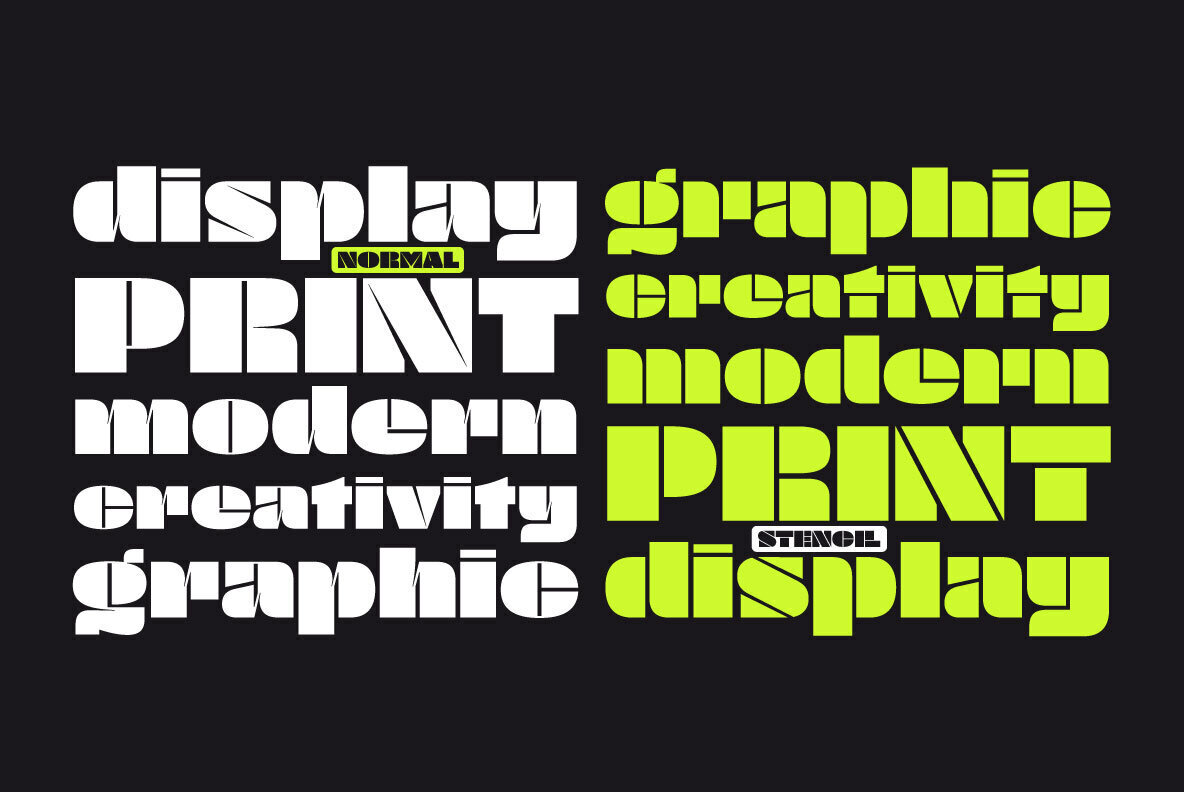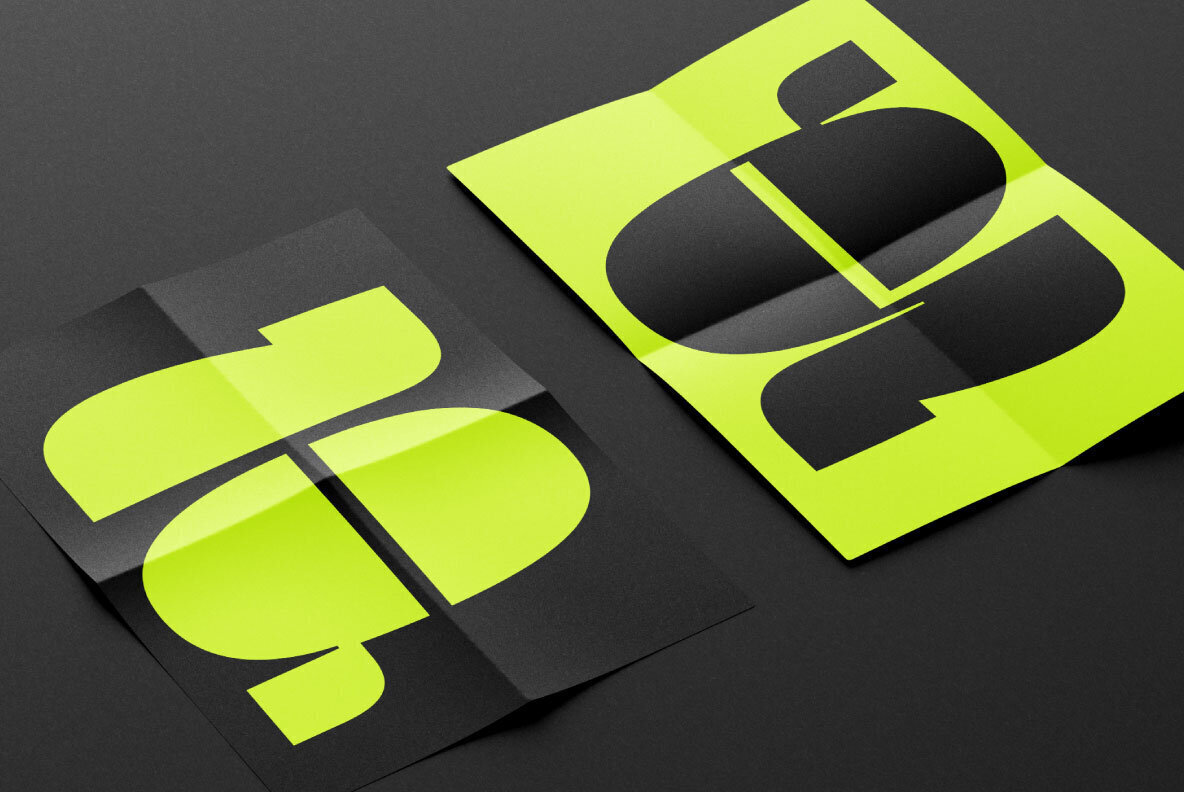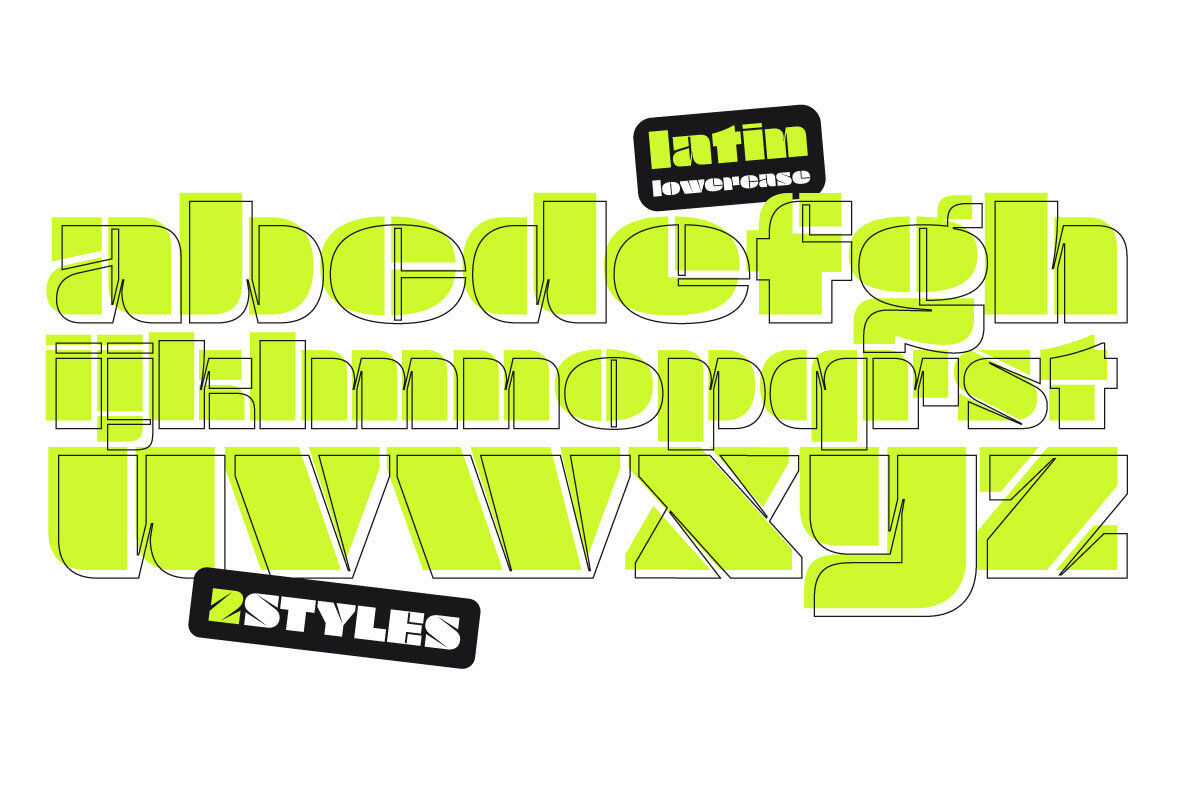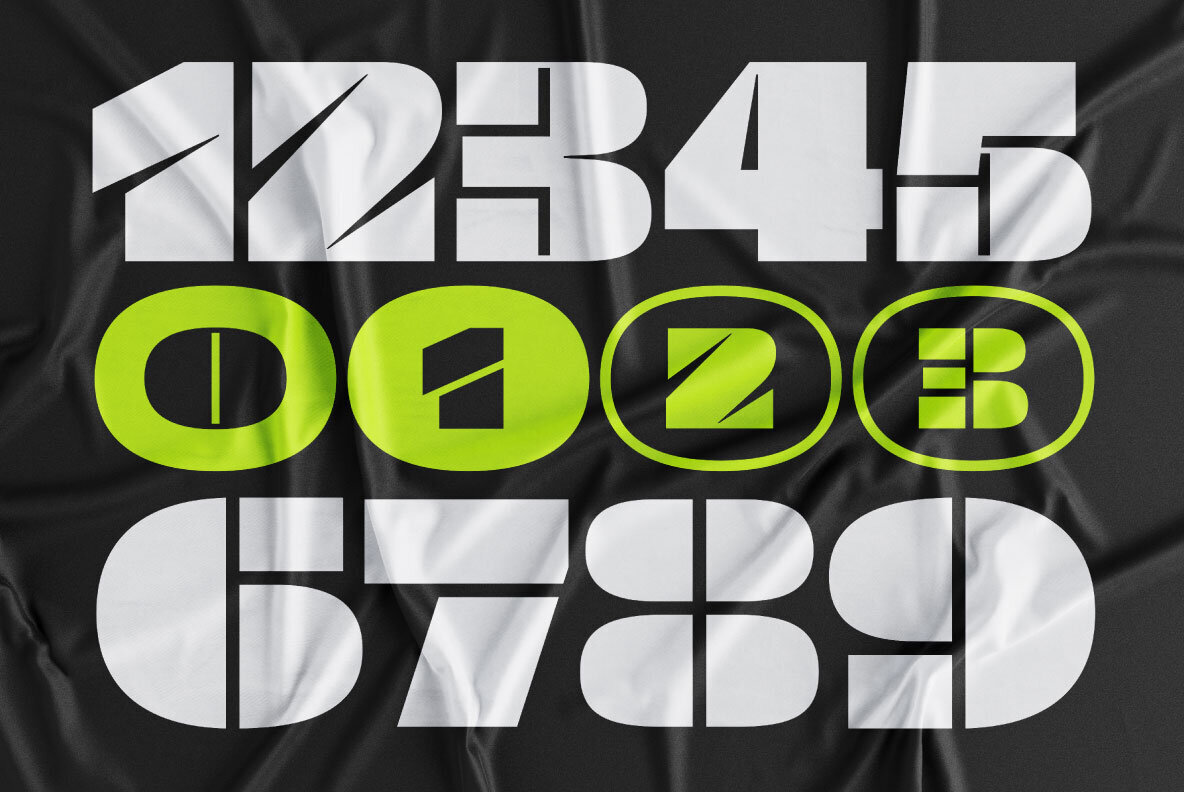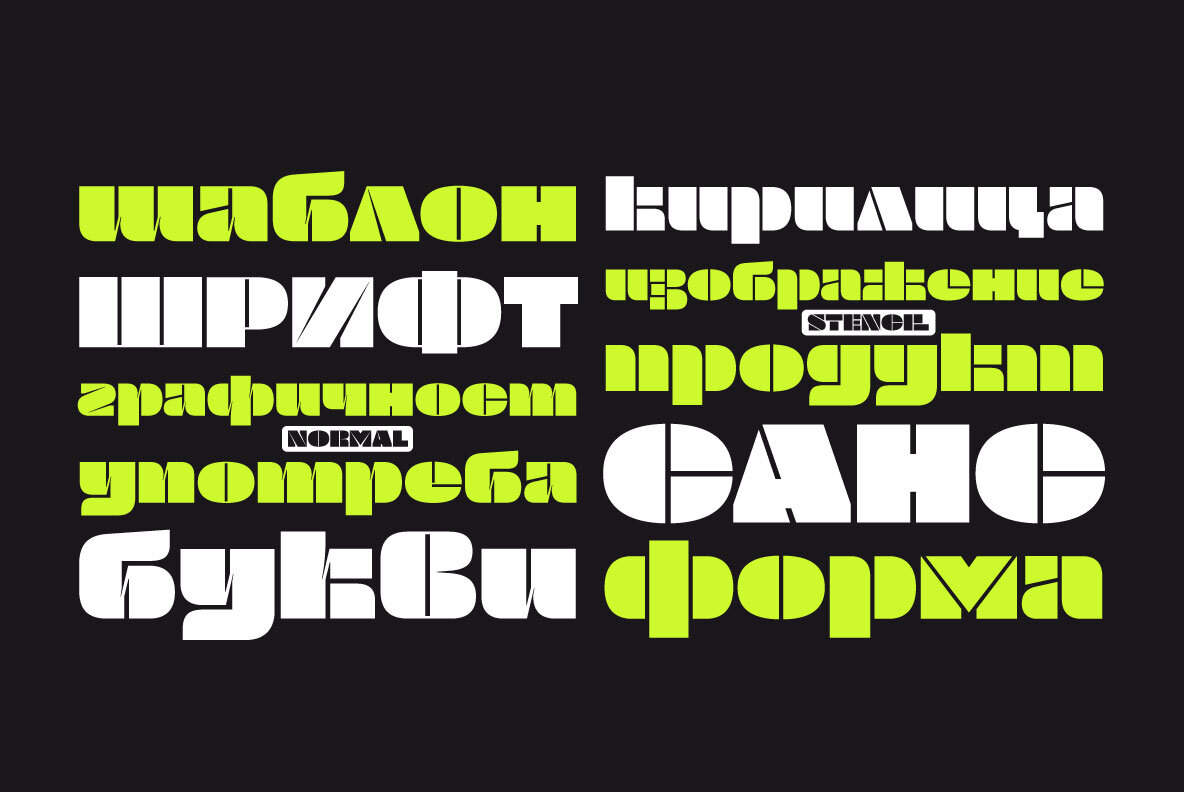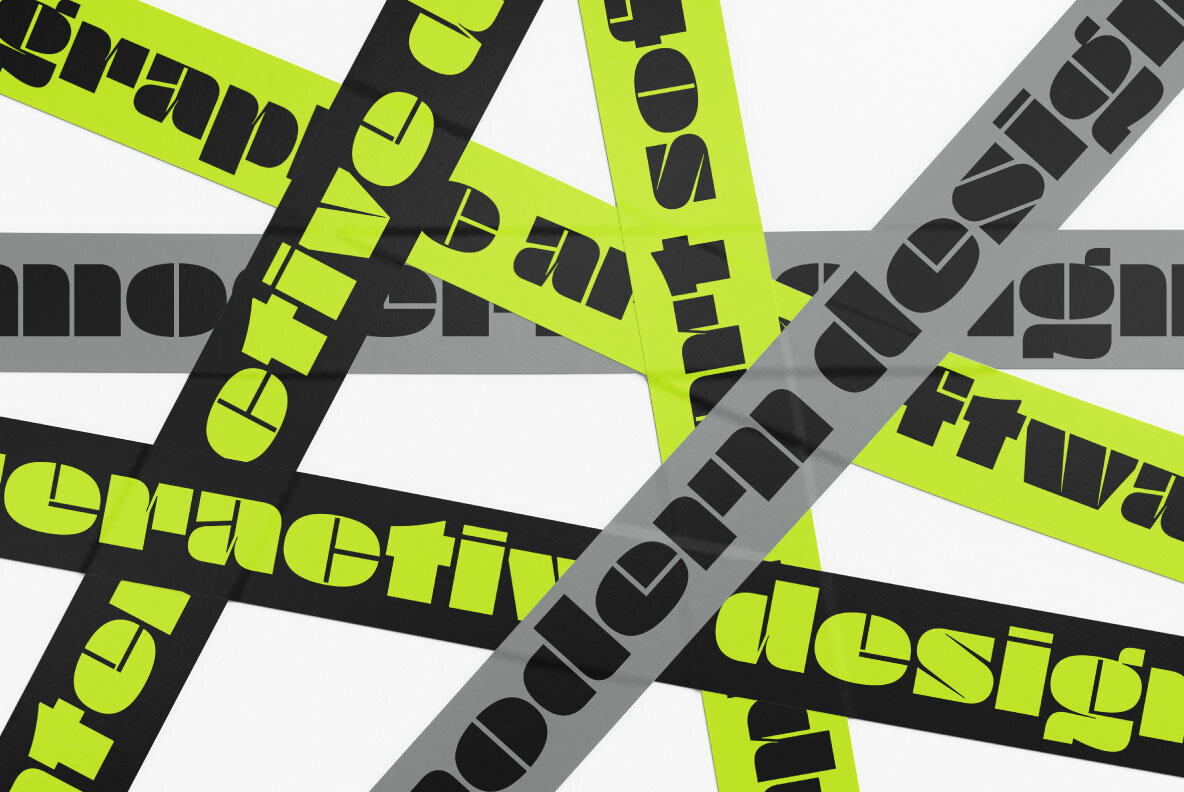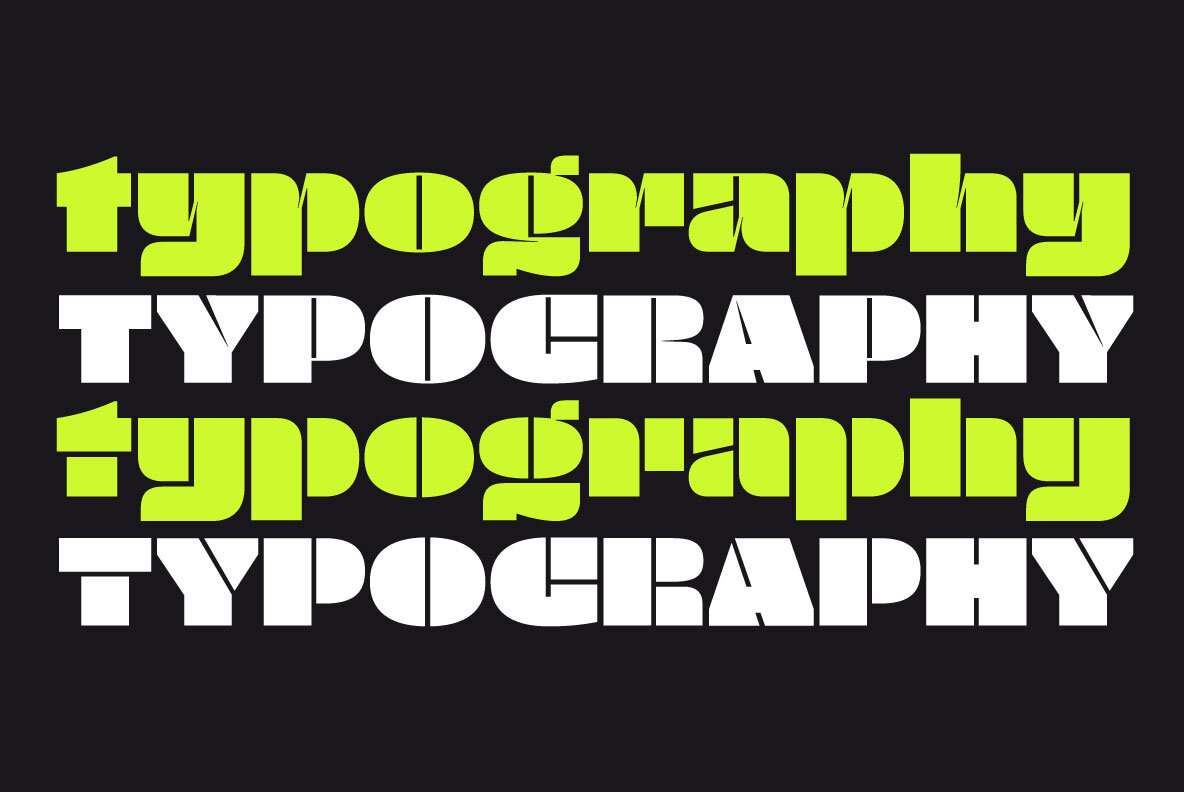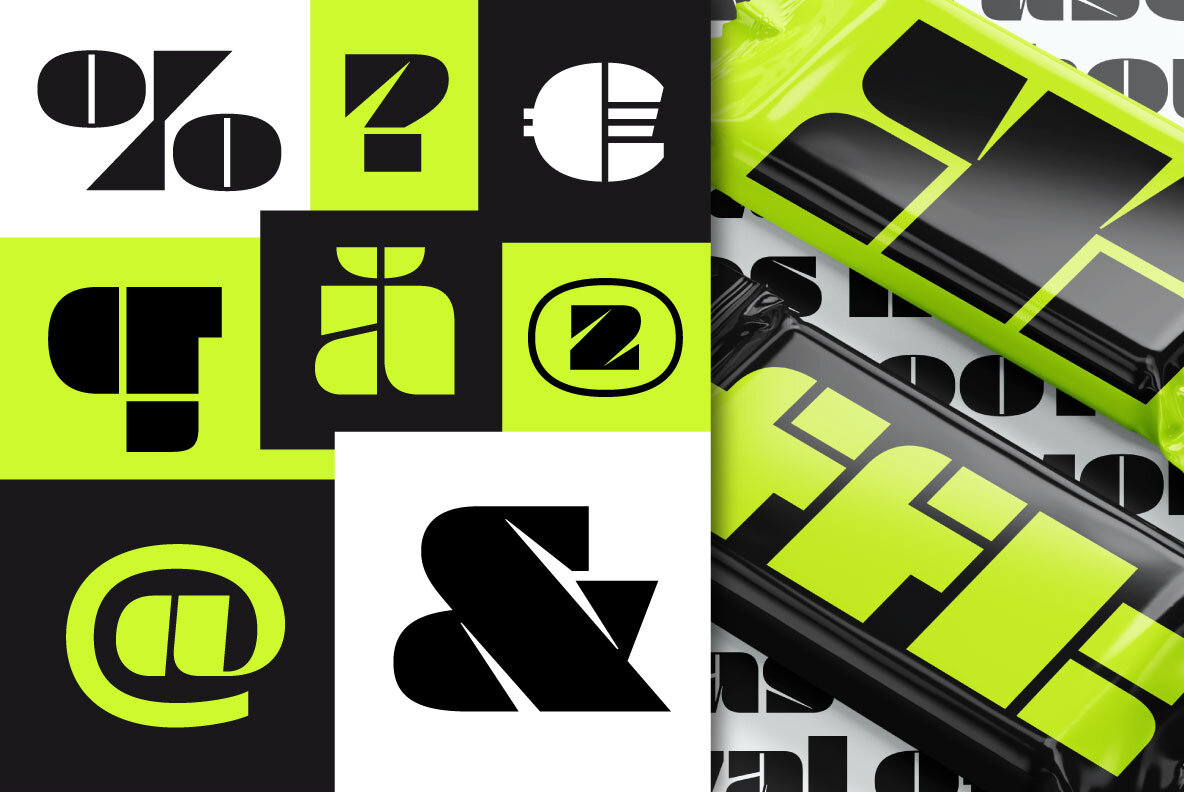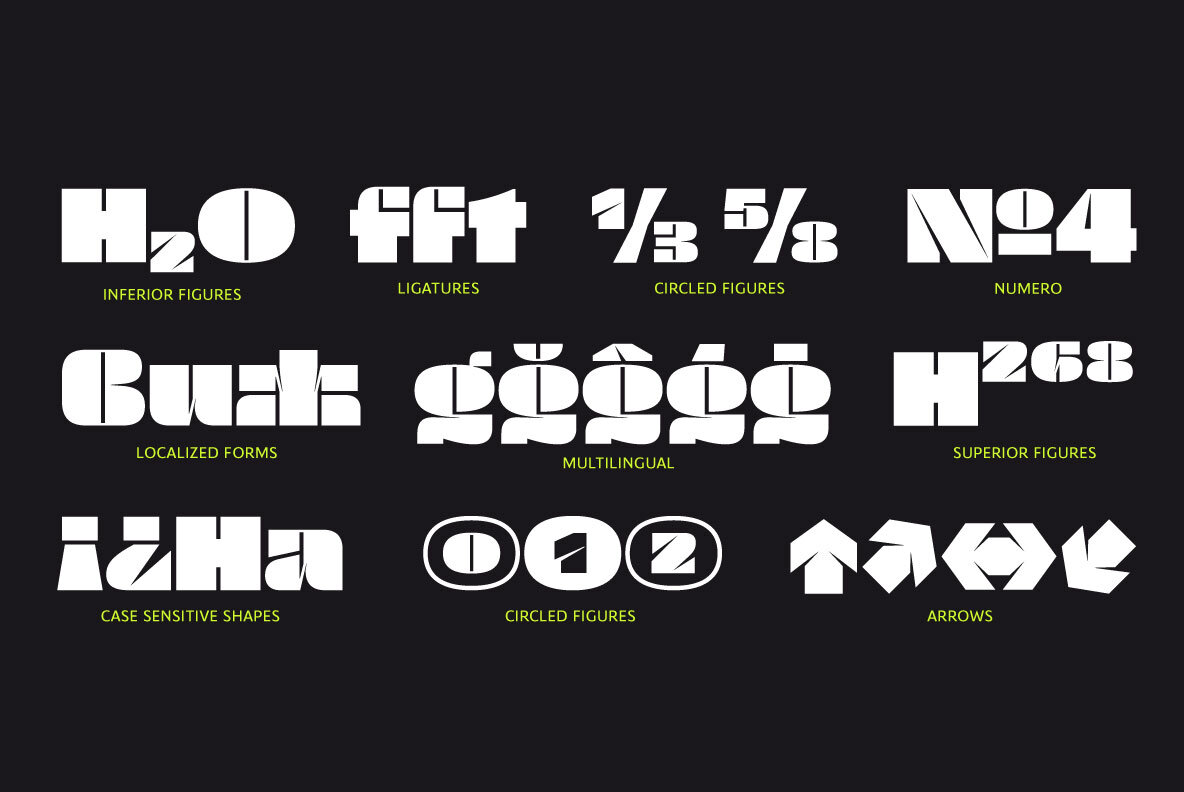
Gang Font
Gang Regular
Gang Stencil
The Gang font family by Ani Dimitrova offers two stylistic variations that excel in creating impactful visual statements. These fonts are meticulously crafted with extended Latin and Cyrillic characters, integrating open type features such as standard ligatures, proportional figures, and matching currency symbols. With a spectrum of typographic options, Gang is designed to suit large headlines, emphasize key words, and enhance diverse advertising formats. Features: The Gang typeface, with its wide character proportions, easily adapts to digital platforms, proving ideal for screen usage. This versatile font family finds its niche in magazines, branding projects, poster design, and web interfaces, offering a dynamic range for display typography enthusiasts.Gang: Bold Display Fonts for Captivating Headlines
Features and Applications